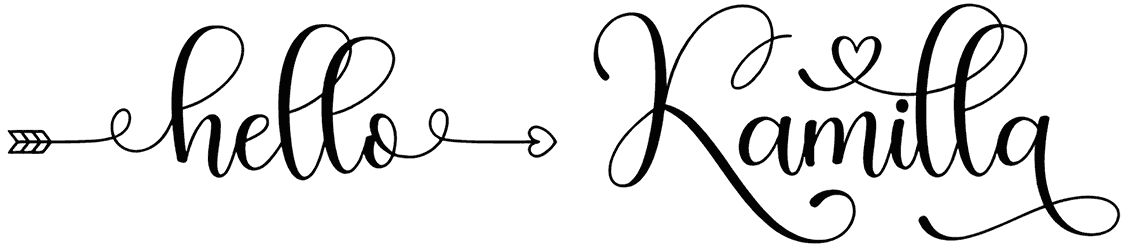
Hello Kamilla Font
For centuries, the thin handwritten calligraphy style has been a fancy element in anything, and Hello Kamilla is here to be that element. This script font gives an illusion of handwritten words to your work, and when its characters sit together to form words, they get an elegant, continuous style.
This useful love font can be good for writing virtual letters, wedding invitations, fashion blog headers, magazine titles, and romantic flyers.